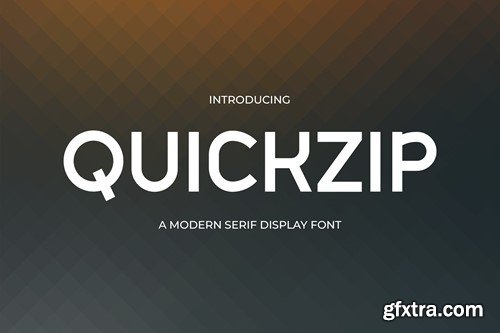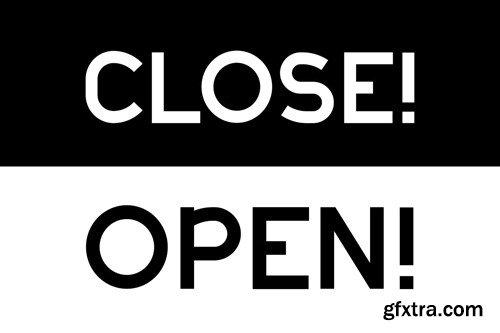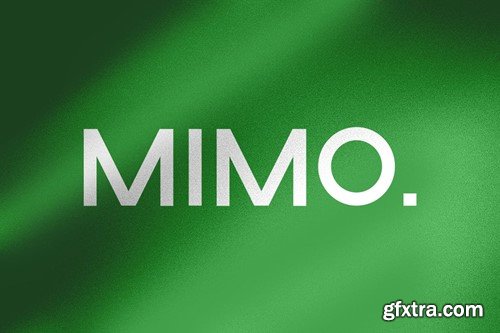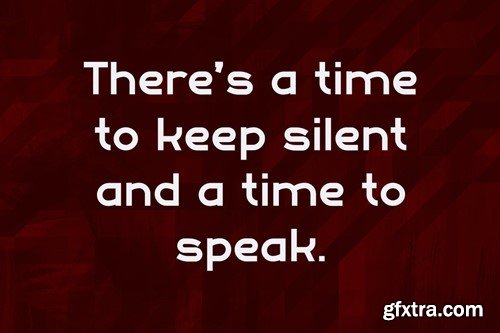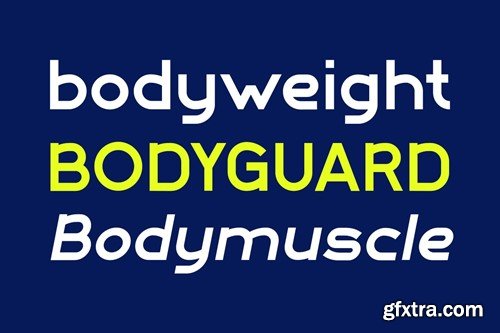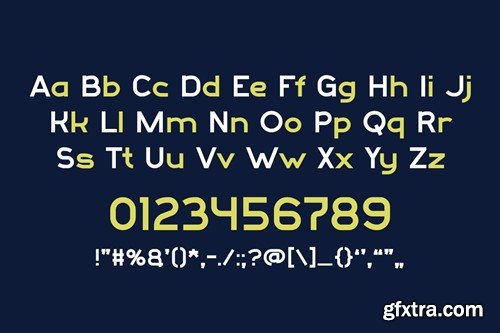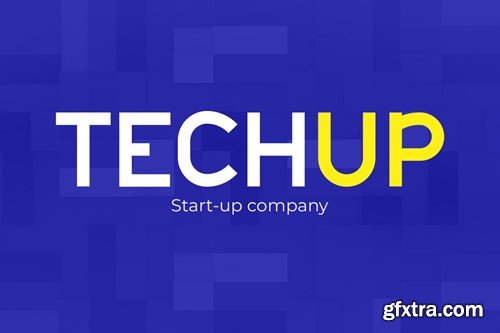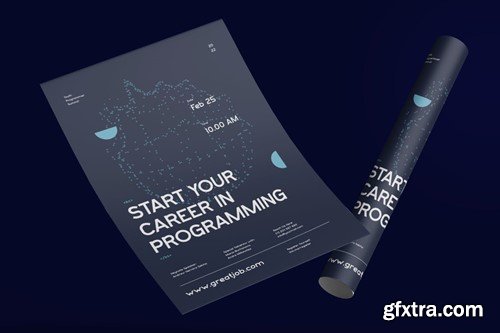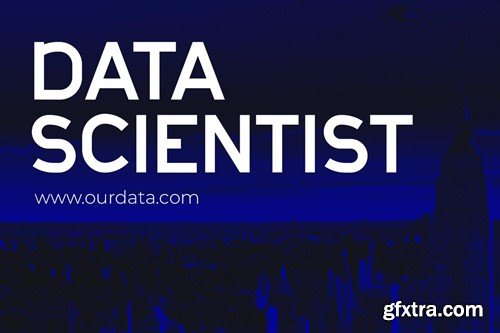
Quickzip - 精致无衬线字体 54D92RB
Meet Quickzip, the font that effortlessly combines elegance with simplicity. As a versatile sans-serif typeface, Quickzip is your go-to choice for a wide range of design projects that demand a touch of refined style. Whether you're creating editorial content, magazine headlines, advertisements, quotes, posters, branding materials, news articles, or cover albums, Quickzip adds a sense of timeless sophistication to your work. The font's elegant appearance is equally well-suited to crafting magazine headlines that instantly captivate readers or creating advertisements that demand attention. Use it to elevate your quotes with a touch of class or to design posters that stand out in any context. Quickzip's clean and straightforward style is ideal for branding, where it can help define a new level of elegance. It's perfect for news articles that require clear and professional typography, as well as cover albums that convey the essence of your art. With Quickzip, you have a versatile tool that enhances your designs with the beauty of elegant simplicity. Its friendly and easy-to-read style ensures that your message is conveyed with clarity and charm. Experience the allure of timeless elegance with Quickzip and watch your designs shine in every project you tackle.